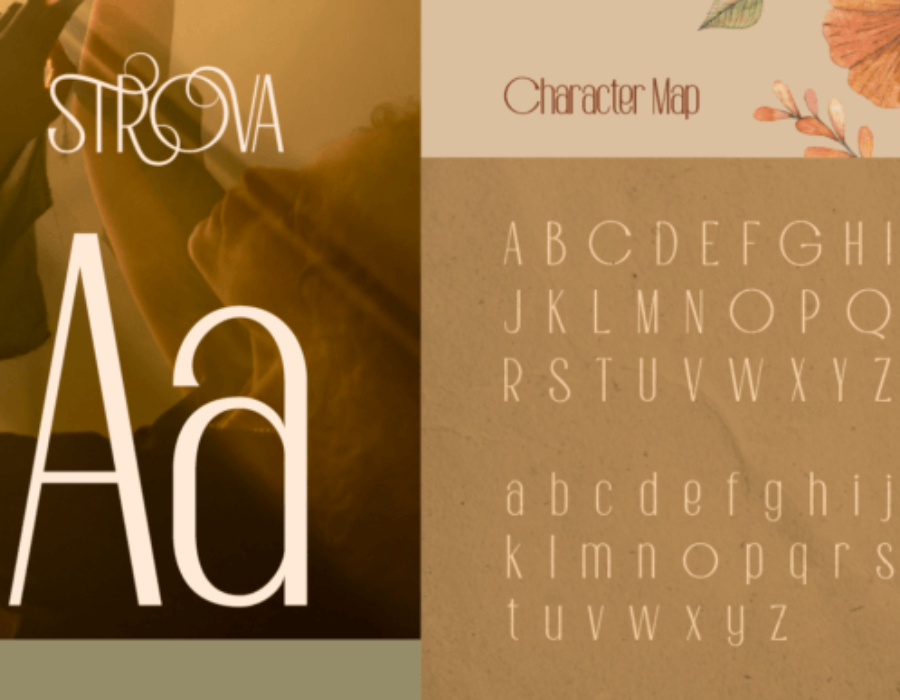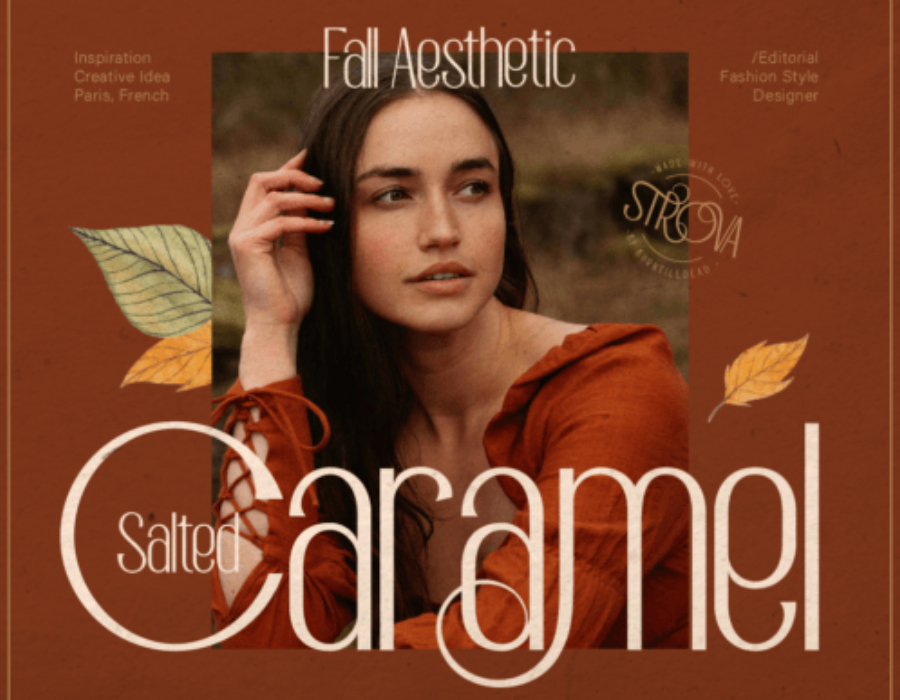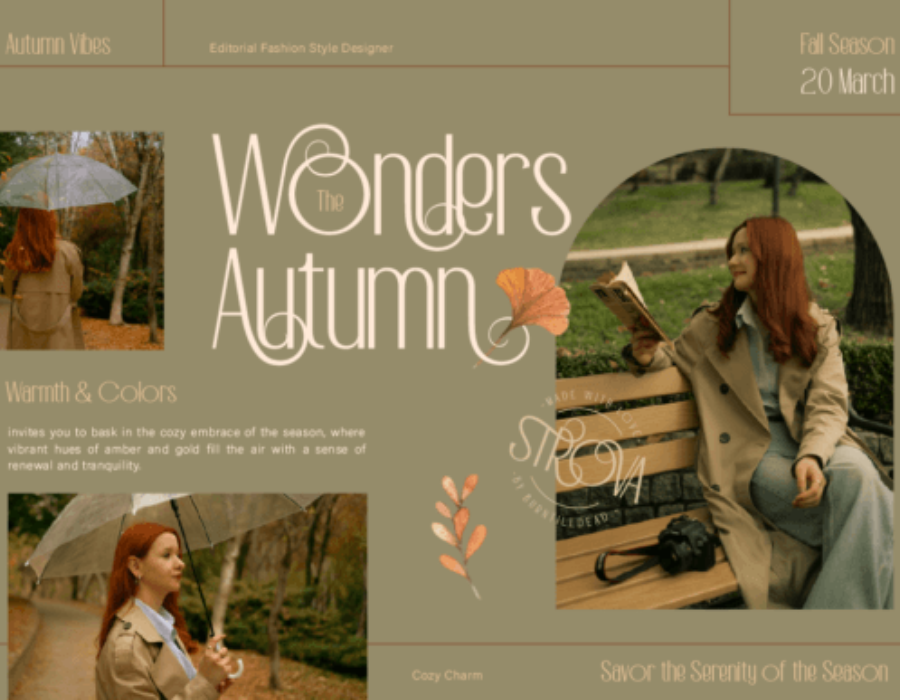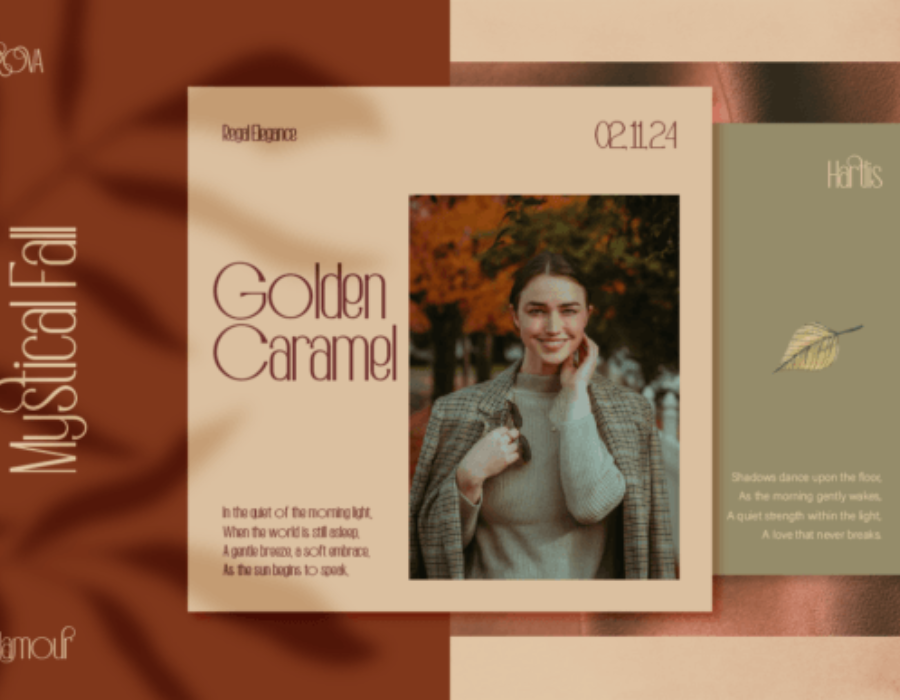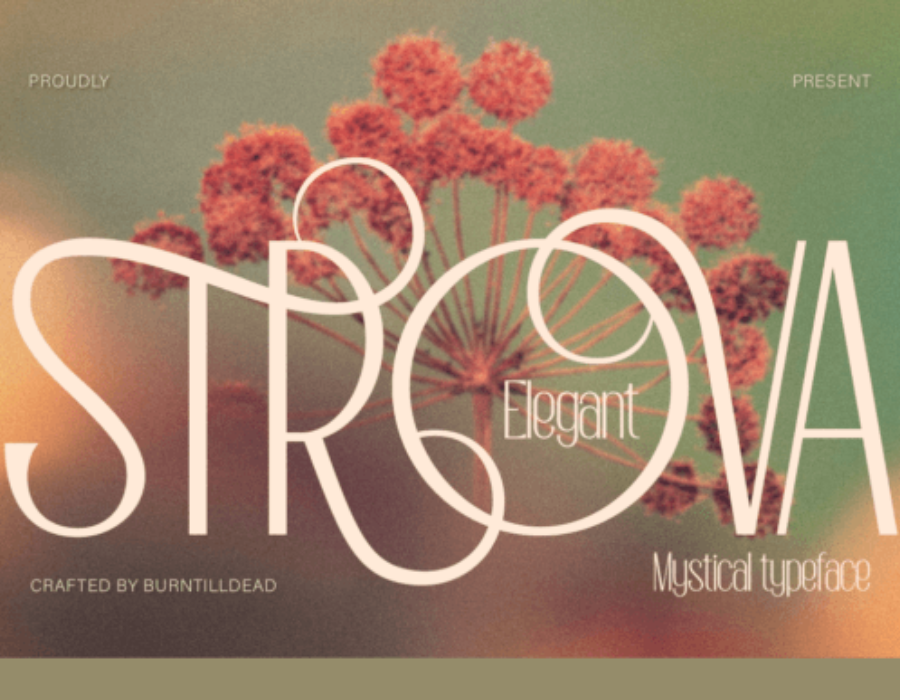
Strova Font – A Bold, Modern Typeface Crafted for Impact and Creative Expression
Typography has the remarkable ability to shape the personality of a design. The right font can transform a simple layout into a professional artwork that communicates style, emotion, and clarity. Among today’s modern typefaces emerging in the design world, Strova Font stands out as a striking and versatile choice. Whether used for branding, editorial layouts, logos, posters, or digital graphics, Strova brings a sense of boldness and contemporary flair that captures attention instantly. This article explores the design features, creative potential, and practical uses of the stunning Strova Font.
A Modern Typeface with a Sharp, Confident Identity
Strova Font is designed with a strong visual presence, ideal for designers who want to create work that leaves a powerful impression. Its character shapes are clean, modern, and well-balanced, offering a perfect blend of geometric structure and sleek curves. Each letterform carries sharp edges and precise lines, giving the font an assertive and polished look.
Unlike typical minimalist fonts that can appear too cold or generic, Strova manages to maintain warmth and style through its unique character proportions. It feels modern without being overly mechanical and stylish without sacrificing readability. The aesthetic strikes a harmony between strength and elegance, making it an excellent choice for both professional and artistic design projects.
Distinctive Features That Set Strova Apart
Designers gravitate toward Strova Font because of its carefully crafted details and visual impact. Some of its most notable features include:
1. Bold Structure with High Legibility
Strova’s bold weight gives it authority and makes it easy to read from both close and long distances. Whether used on large posters or digital thumbnails, it maintains clarity and presence.
2. Geometric Precision
The font incorporates geometric shapes—circles, straight lines, and sharp angles—that create a visually consistent and modern appearance. This structure makes the typeface feel reliable, clean, and contemporary.
3. Versatility Across Design Styles
Although Strova has a bold and assertive nature, it adapts remarkably well to different themes, including:
Luxury branding
Minimalist layouts
Tech and futuristic graphics
Editorial and magazine headlines
Product packaging
Promotional marketing materials
4. Stylish Letterforms
Some characters feature distinctive shapes, giving the typeface personality. These subtle design quirks help Strova stand out in logo designs and creative branding.
Perfect for Branding and Logo Design
Branding requires fonts that not only look beautiful but also communicate a company’s identity. Strova Font excels in this area because it conveys confidence, professionalism, and modernity. Its bold structure ensures that brand names will remain memorable and readable across various mediums, from digital screens to printed labels.
Whether you’re creating a luxurious cosmetic brand, a high-tech startup, a modern café, or a fashion boutique, Strova can reflect the brand’s spirit through its sleek and sophisticated tone. Its ability to stand strong as a headline or main logotype makes it a popular choice among logo designers.
A Powerful Asset for Editorial and Display Design
Magazines, lookbooks, portfolios, and web banners often rely on eye-catching typography. Strova Font’s strong presence makes it ideal for:
Headers
Subtitles
Pull quotes
Cover titles
Promotional graphics
The font’s boldness helps emphasize important content while maintaining a modern aesthetic. In editorial design, Strova creates a clean visual hierarchy, allowing designers to guide the reader’s eye naturally across the layout. Pairing Strova with a minimal sans serif or a thin serif font creates striking contrast and enhances overall sophistication.
Ideal for Posters, Advertising, and Social Media Designs
In marketing, first impressions matter. A well-designed advertisement must grab attention instantly, and Strova Font excels in this role. Its bold, modern letterforms make it perfect for posters, banners, and digital ads. Whether your design theme is urban, futuristic, luxurious, or minimalistic, Strova enhances the message with clarity and power.
For social media content—such as Instagram quotes, YouTube thumbnails, reels, or promotional posts—the font’s strong presence translates exceptionally well into digital environments. It creates scroll-stopping visuals that elevate the overall branding of your content.
Enhancing Product Packaging and Merchandising
Packaging design benefits greatly from bold and modern typography. Strova Font brings a sense of quality and contemporary style to product labels, boxes, jars, or bottles. Its readability ensures that brand names, slogans, and key product information remain clear, even at smaller sizes.
Whether you’re a designer looking to enhance your creative portfolio or a brand seeking a modern typographic voice, Strova Font offers the perfect blend of style and professionalism. Its ability to stand out while remaining highly readable makes it an indispensable font for today’s visually driven world.